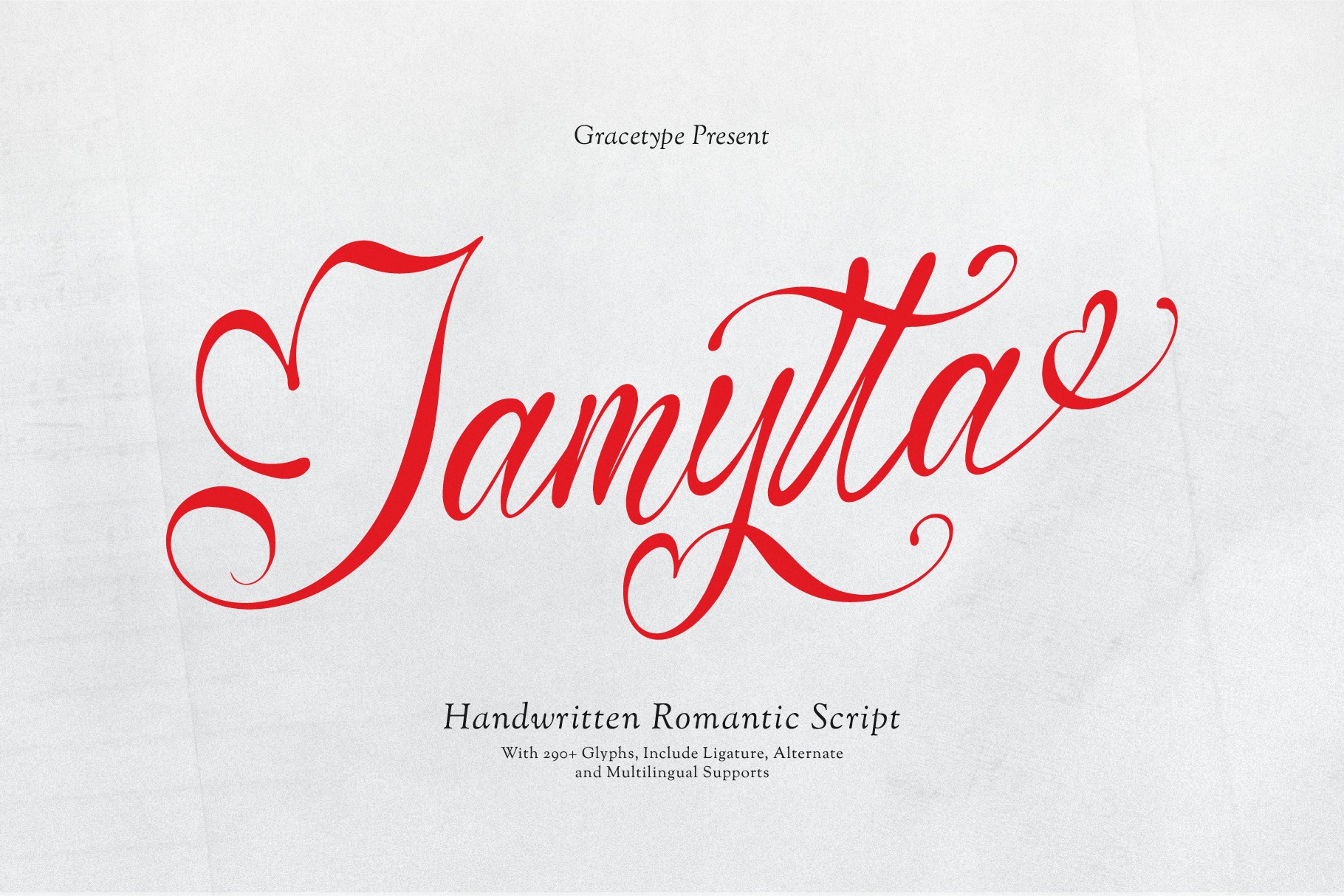
Jamytta – Romantic Elegant Font
Jamytta – Romantic Elegant Font is a clean and thoughtfully built typeface that works seamlessly for both professional branding and everyday creative uses. Jamytta | Romantic Script, from Gracetypestudio, suitable for any projects such as: logos, branding projects, homeware designs, product packaging, mugs, quotes, posters, shopping bags, t-shirts, book covers, name card, invitation cards, greeting cards, label, photography, watermark, special events, and all your other lovely projects that need a Script taste.